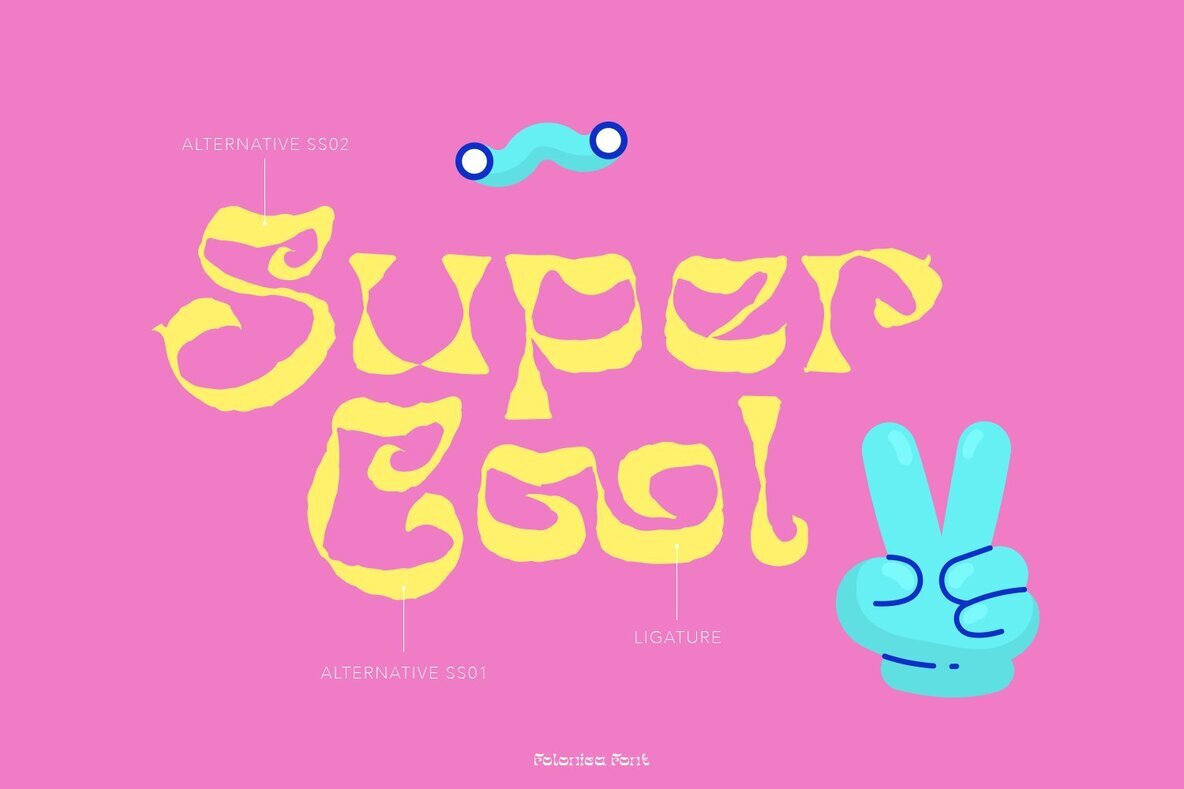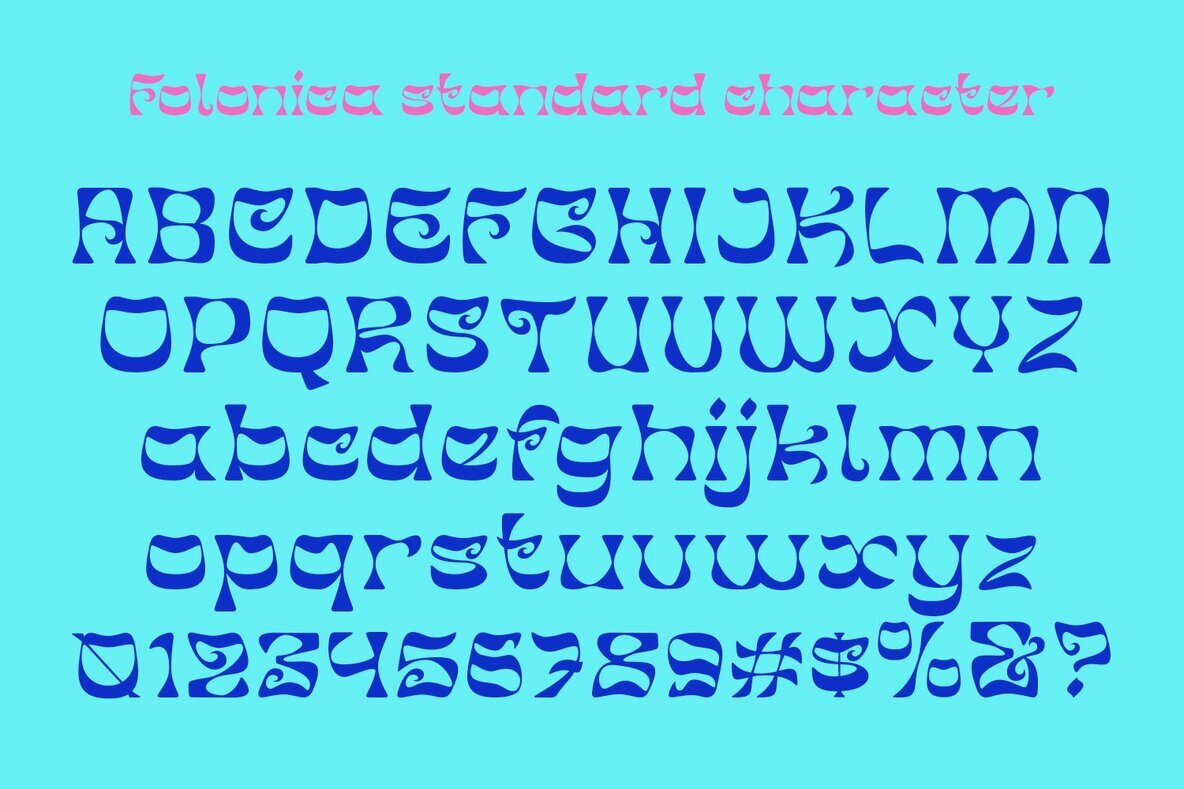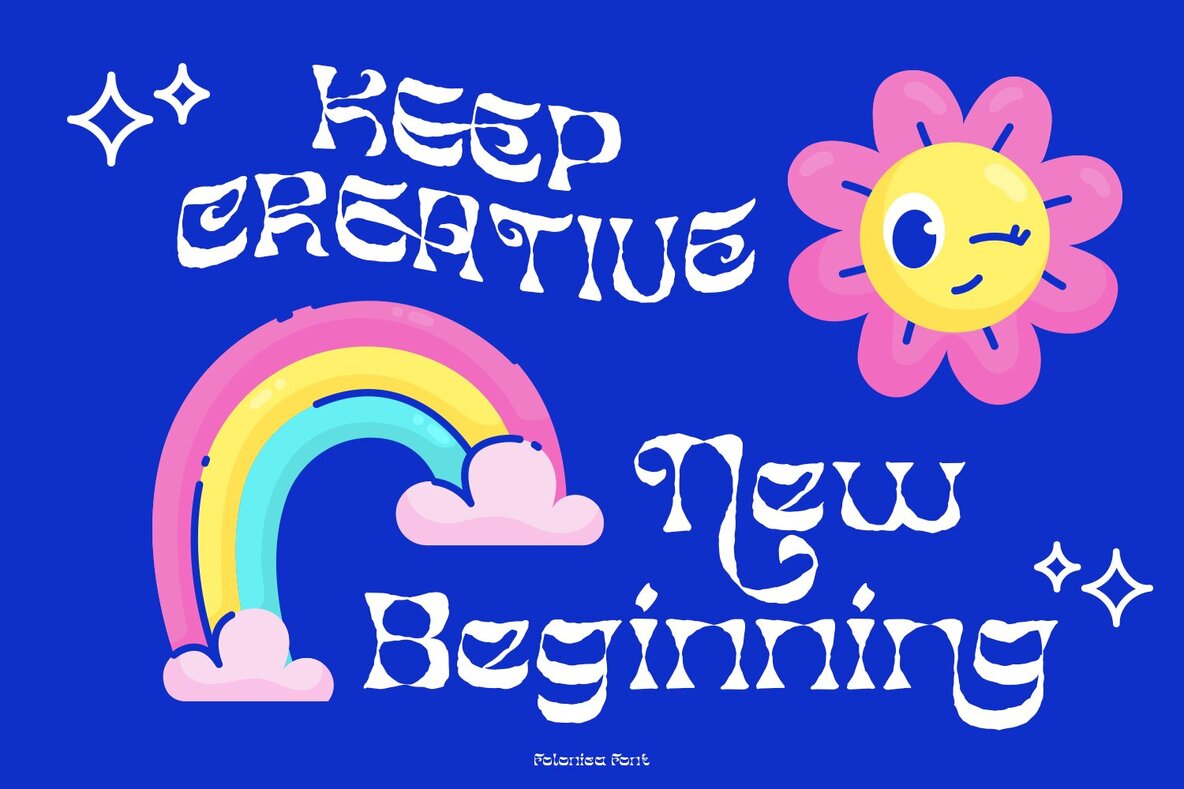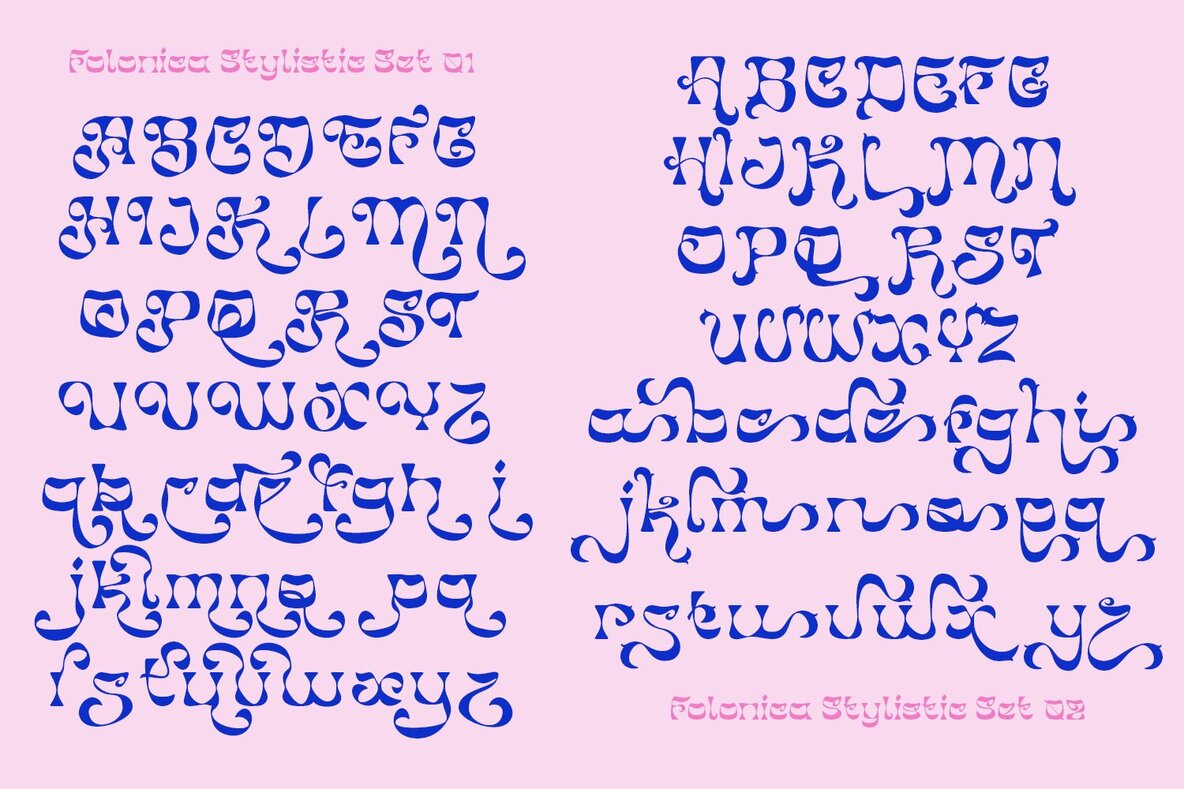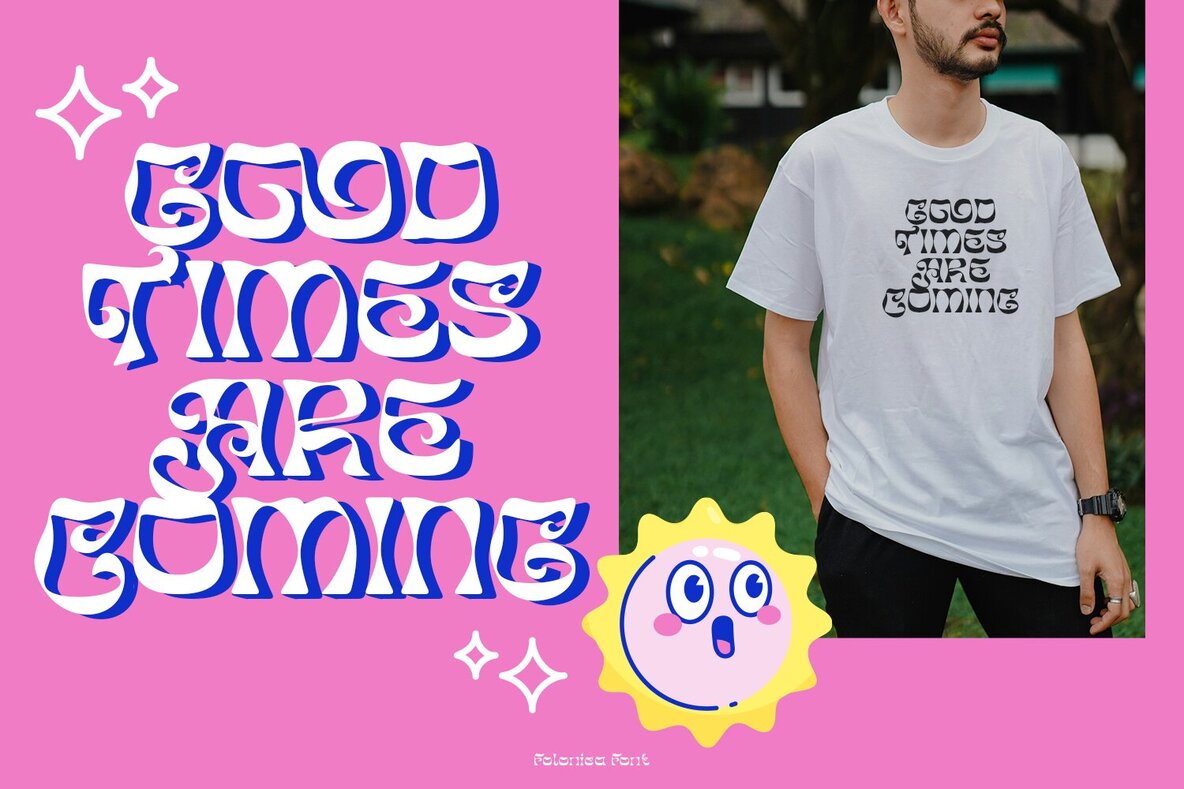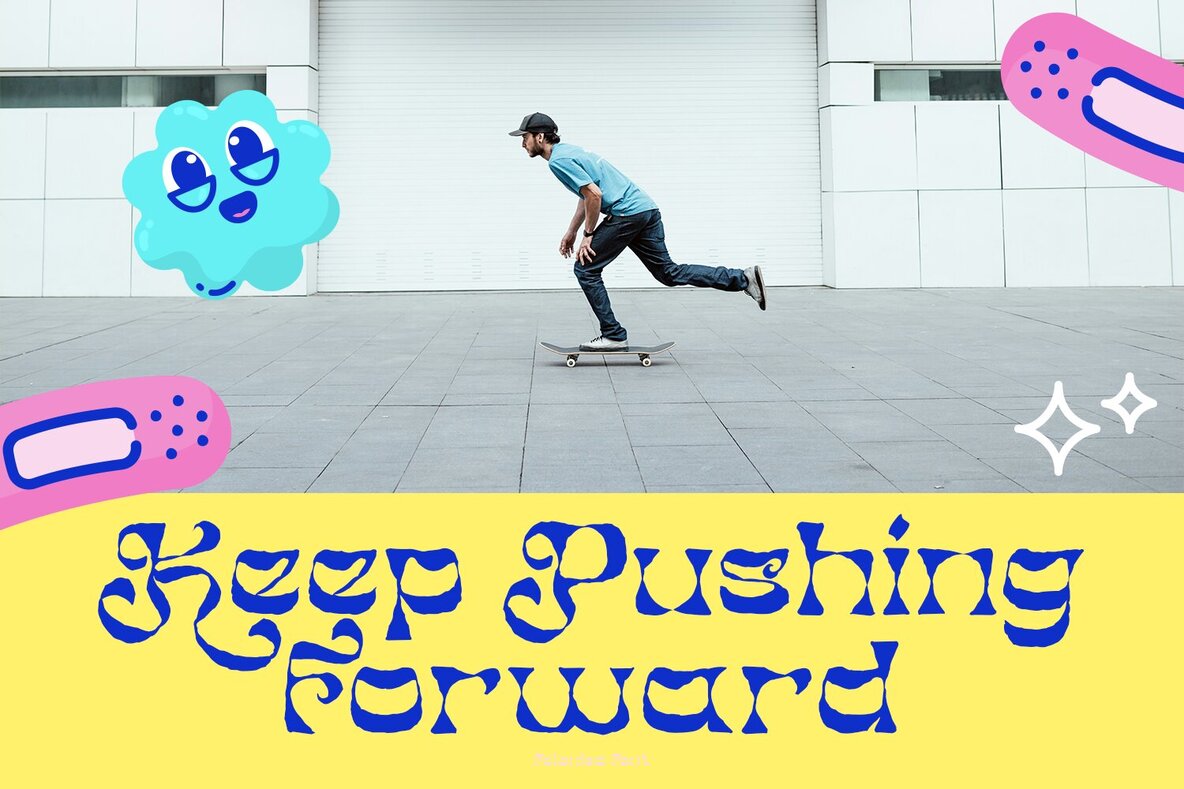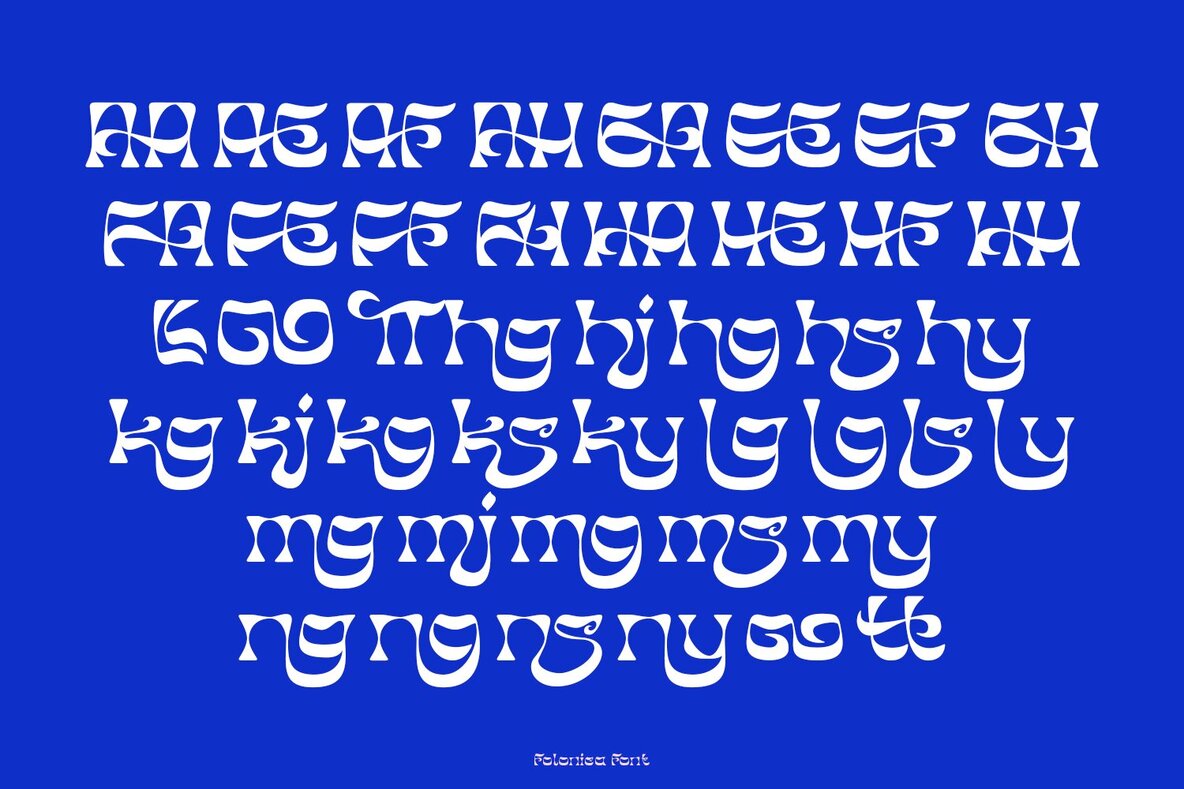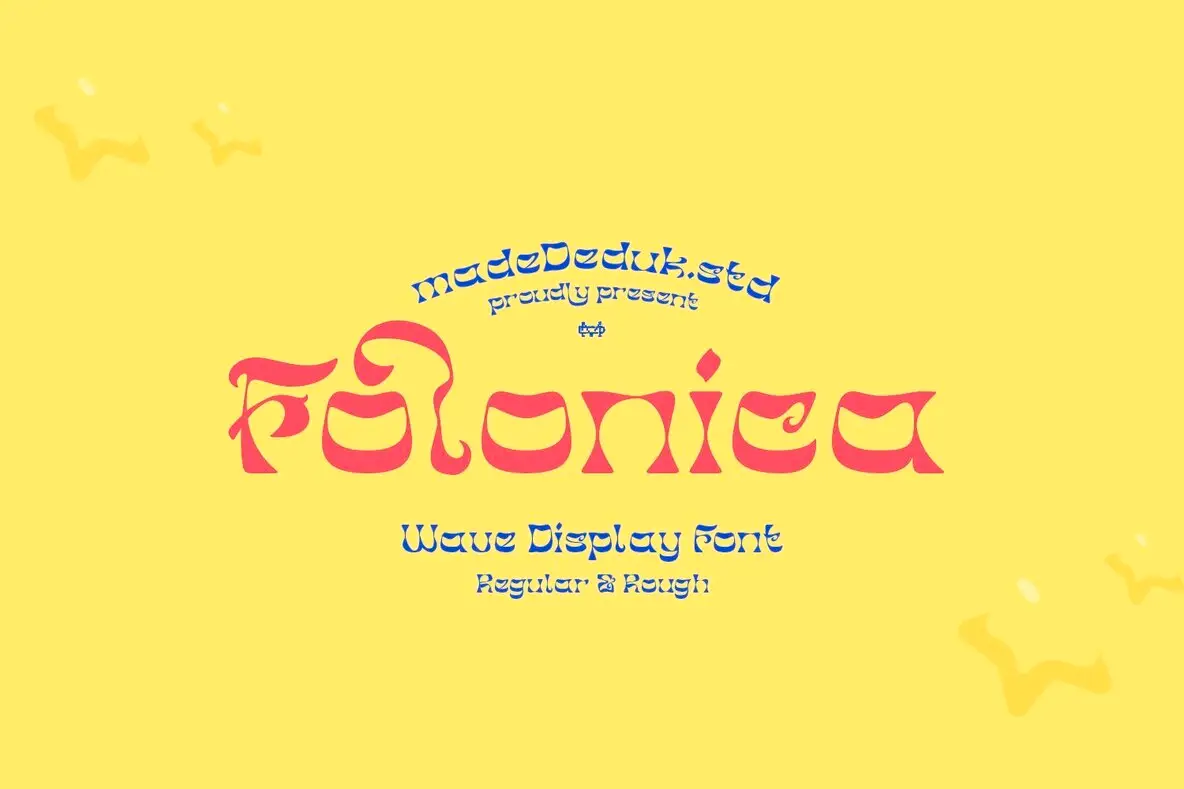
Folonica Font
Folonica exudes a classic, vintage aesthetic, making it a fitting choice for high-end fashion and cultural settings. This display font's high contrast and elegant style lend themselves to a variety of applications, helping you achieve a classic look across your creative projects.Folonica: A Vintage Display Font with Timeless Charm